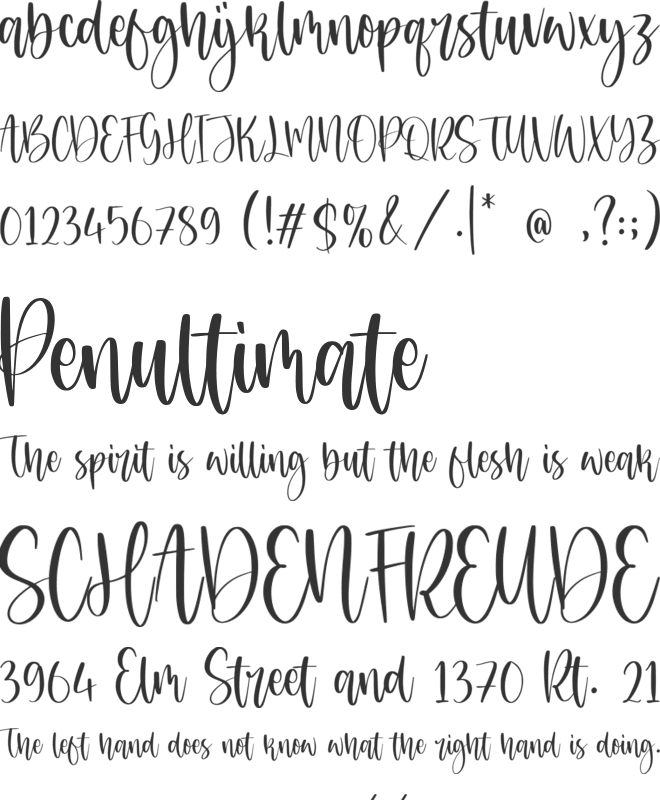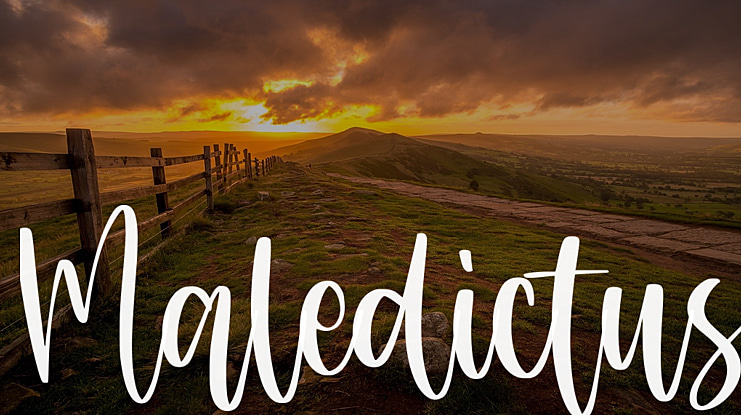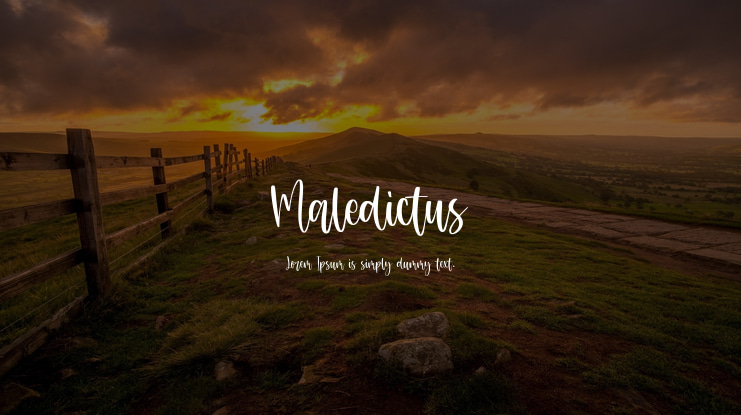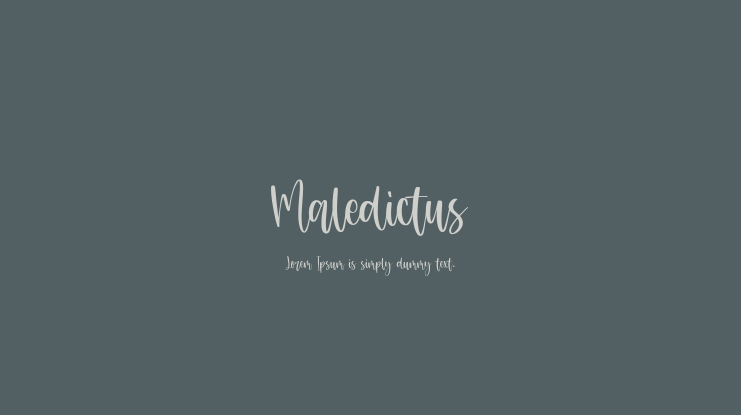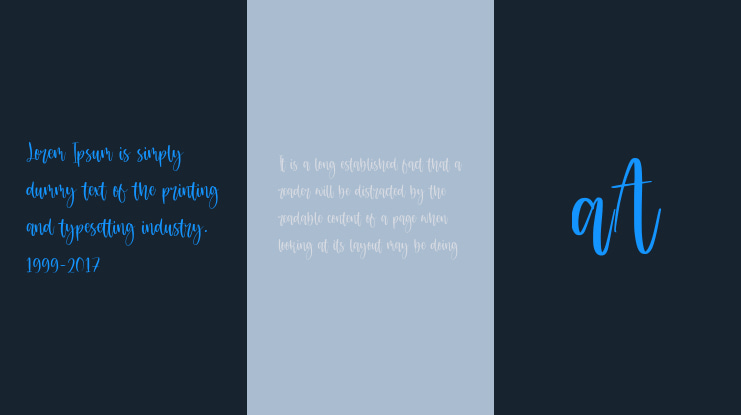
Maledictus Font
Introducing by Letterative Studio : Maledictus Font
Maledictus is a Modern Handwritten Font
Maledictus is perfect for product packaging, branding project, megazine, social media, wedding, or just used to express words above the background.
Maledictus also multilingual support